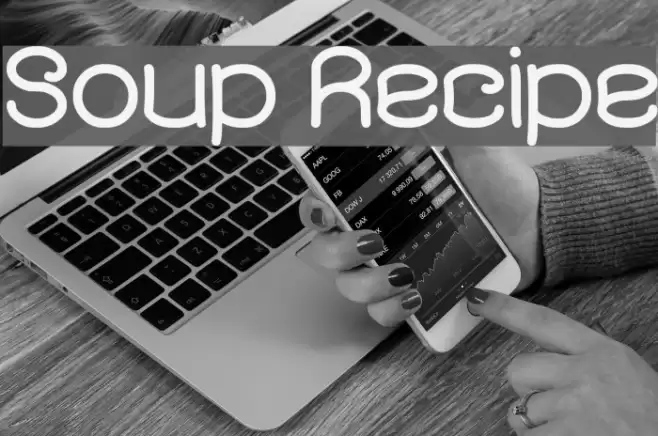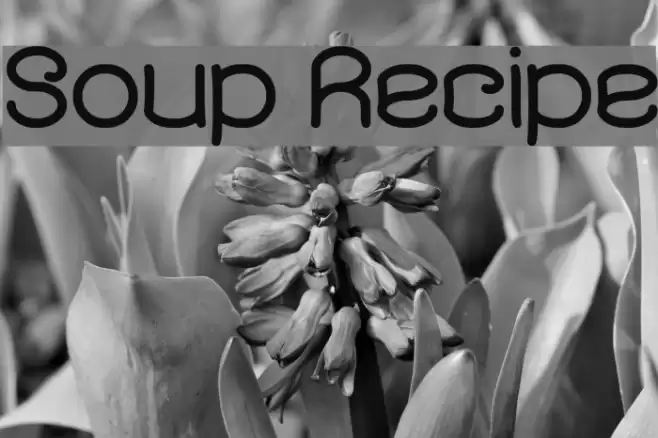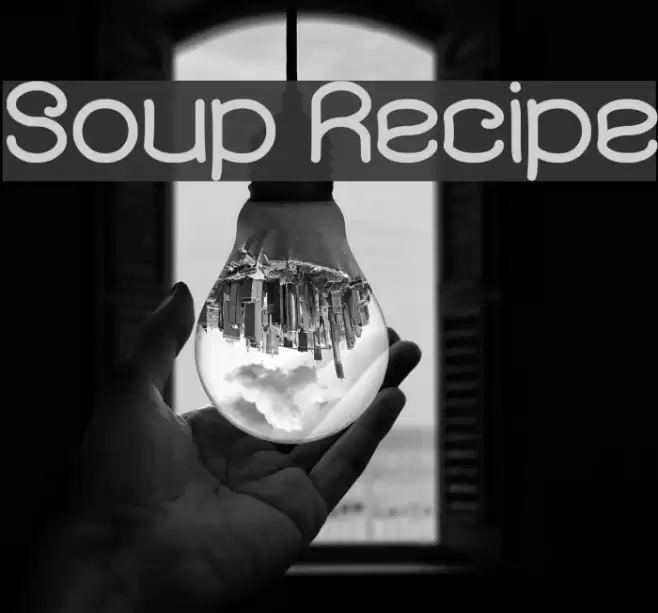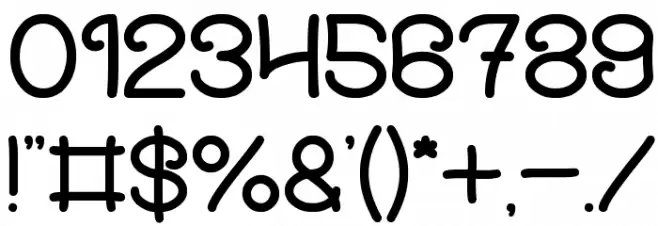
Soup Recipe Font
Soup Recipe Description
This playful and rounded font features a unique blend of curves and loops, giving it a whimsical and friendly appearance. The characters are evenly spaced, with a consistent stroke width that maintains readability while adding a touch of fun. The uppercase letters are bold and prominent, while the lowercase letters maintain a softer, more approachable feel. Numbers and special characters are designed with the same playful style, making this font versatile for various creative projects. Its distinct style makes it ideal for children's books, playful branding, and casual invitations.
A playful, rounded font with consistent stroke width and whimsical curves from Uncategorized fonts.
- Proposed Projects: Ideal for children's books, playful branding, casual invitations, and creative posters.
- Overall Style: Playful
- Use Case: Headlines, Logos, Invitations